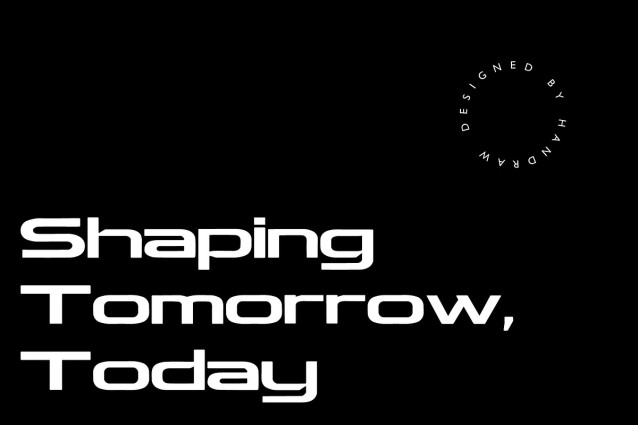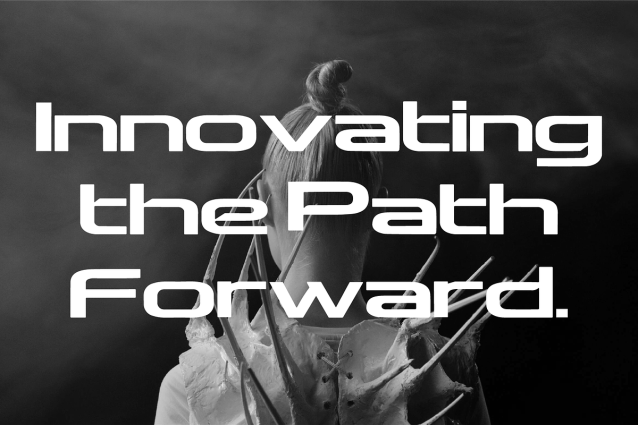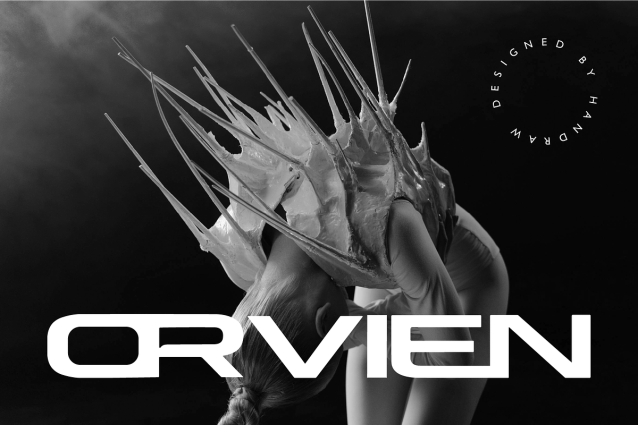
Orvien Font
Orvien Font is a futuristic font that embodies sleek, cutting-edge design. Its sharp lines and geometric shapes give it a high-tech, modern feel, making it perfect for projects focused on innovation, technology, or the future. The font’s clean and minimalistic style ensures readability while exuding a sense of forward-thinking and progress. Orvien is ideal for designs that aim to convey a sense of sophistication and advanced modernity.